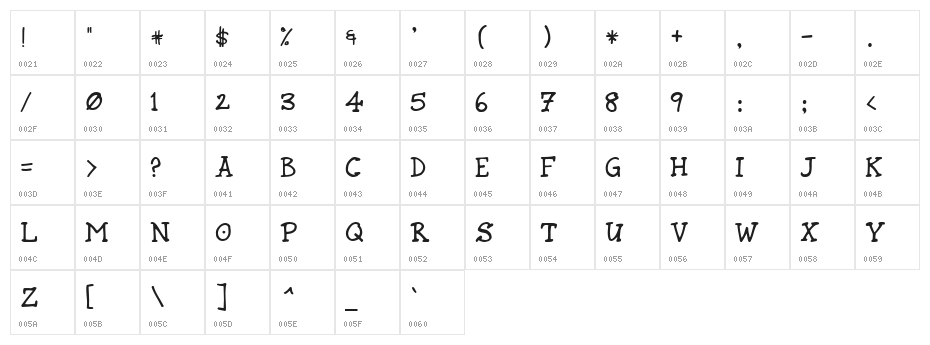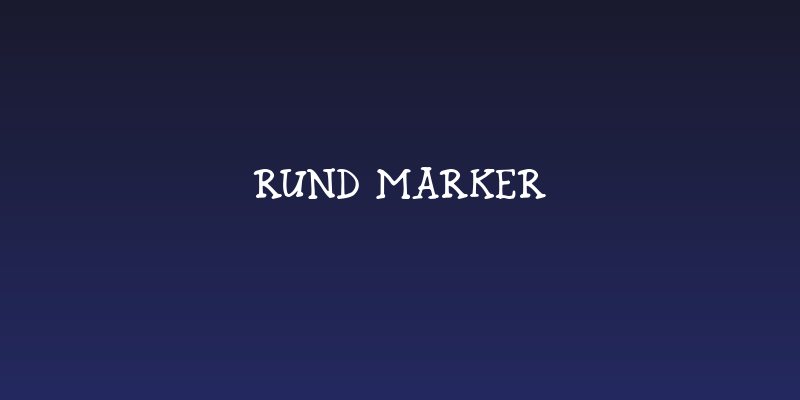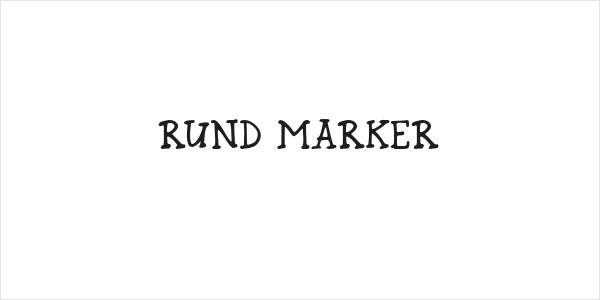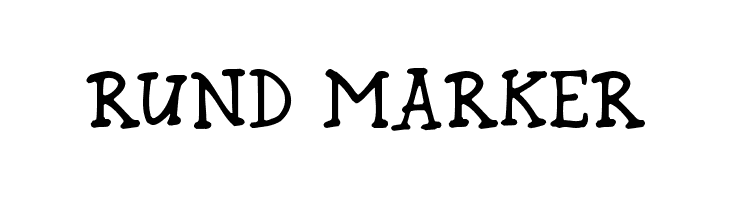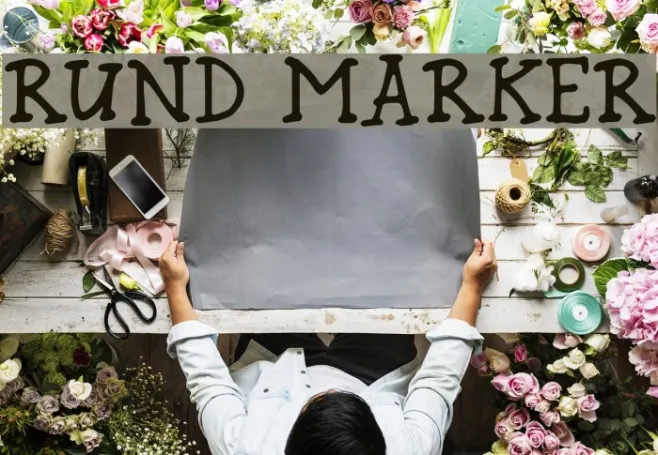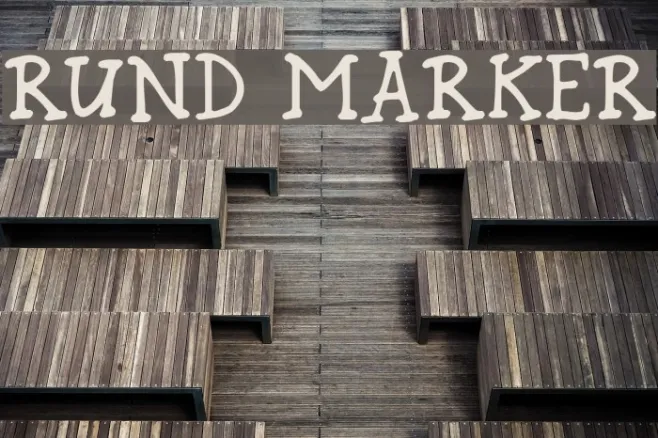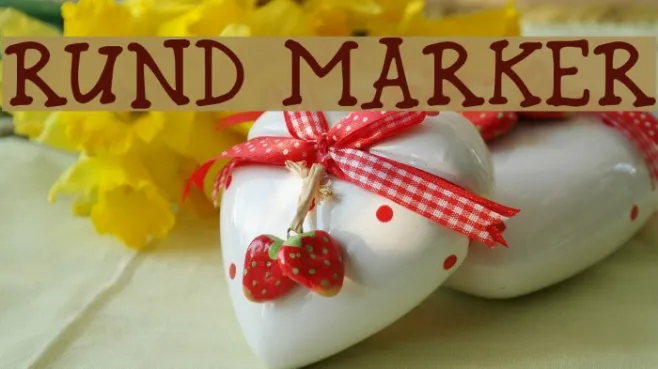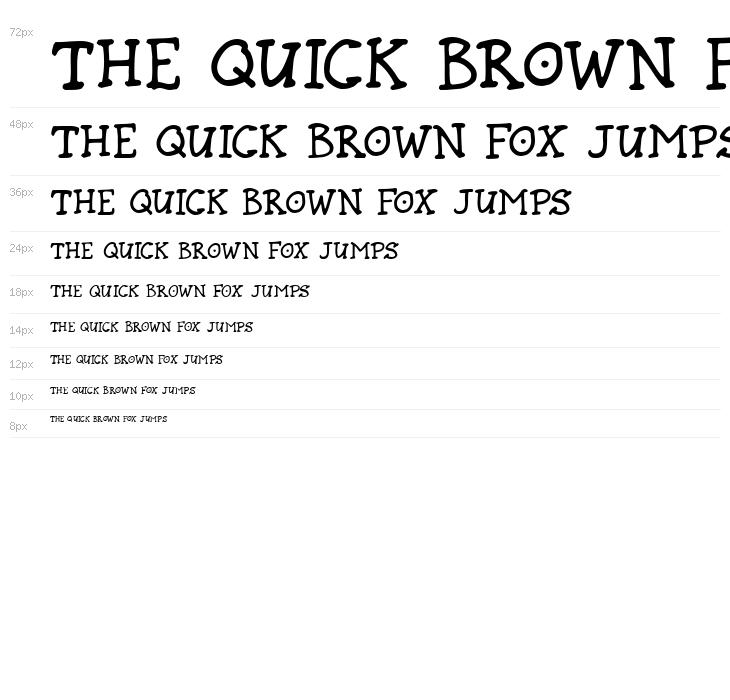
Rund Marker Font
Rund Marker Description
This font features a playful and informal style, characterized by its rounded and slightly irregular letterforms. The strokes are consistent in thickness, giving it a uniform appearance while maintaining a hand-drawn feel. The uppercase and lowercase letters are well-proportioned, with a slight slant that adds to its casual aesthetic. The numerals and special characters follow the same design principles, ensuring a cohesive look across all glyphs. This font is ideal for projects that require a friendly and approachable tone, such as children's books, casual branding, or creative posters.
| Overall Style | Casual |
| Proposed Projects | Children's books, casual branding, creative posters, greeting cards. |